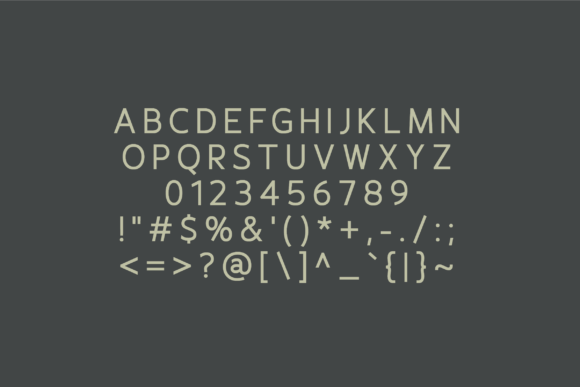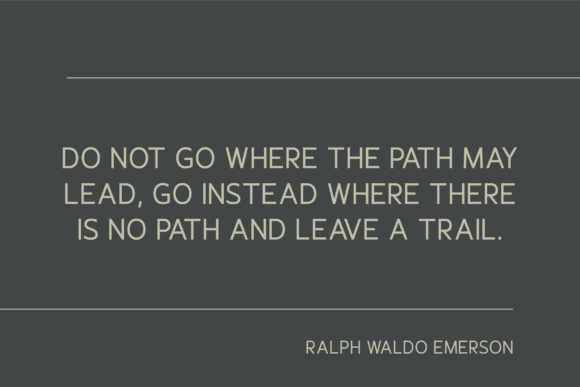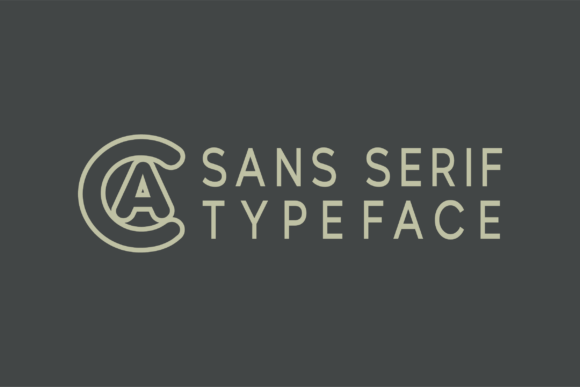
Introduction to Rosequartz Font
Have you ever found yourself staring at a blank page, waiting for the perfect font to bring your creative project to life? The struggle is real, but what if I told you that your search is over? Meet the Rosequartz Font, a stunning sans serif typeface that’s about to revolutionize your design game.
With its modern and classy design, Rosequartz Font is the perfect addition to any project. Whether you’re working on a logo, wedding invitation, or magazine article, this versatile font will elevate your design to new heights. And the best part? It’s incredibly easy to use, with a wide range of characters, numbers, and punctuation marks at your fingertips.
Key Features of Rosequartz Font
- High-quality, professional font designed for creative projects, suitable for various design applications.
- Features a unique, elegant design with a subtle touch of sophistication, perfect for branding, logos, and titles.
- Includes a comprehensive character set, covering a wide range of languages and characters.
Honest Review: Rosequartz Font
I recently stumbled upon the Rosequartz Font, and I must say it’s been a pleasant discovery. As a designer, I’m always on the lookout for high-quality design resources to elevate my creative projects. The Rosequartz Font definitely delivers.
- High-quality design and typography
However, there are a few limitations: ⚠️ The font selection is relatively limited, and it may not be suitable for very large-scale projects. Additionally, the font’s elegance can sometimes make it feel a bit too formal for more casual designs.
Overall, I’m impressed with the Rosequartz Font, and I’d definitely recommend it to designers looking for a high-quality, free design resource. Just be mindful of its limitations, and you’ll be all set for a beautiful and professional-looking design project.
Tips for Getting the Most Out of Rosequartz Font
To get the most out of Rosequartz Font, experiment with different font sizes, colors, and combinations to create unique and eye-catching designs.
Rosequartz Font is perfect for use in:
- Wedding invitations and stationery.
- Branding and marketing materials.
- Graphic design projects.